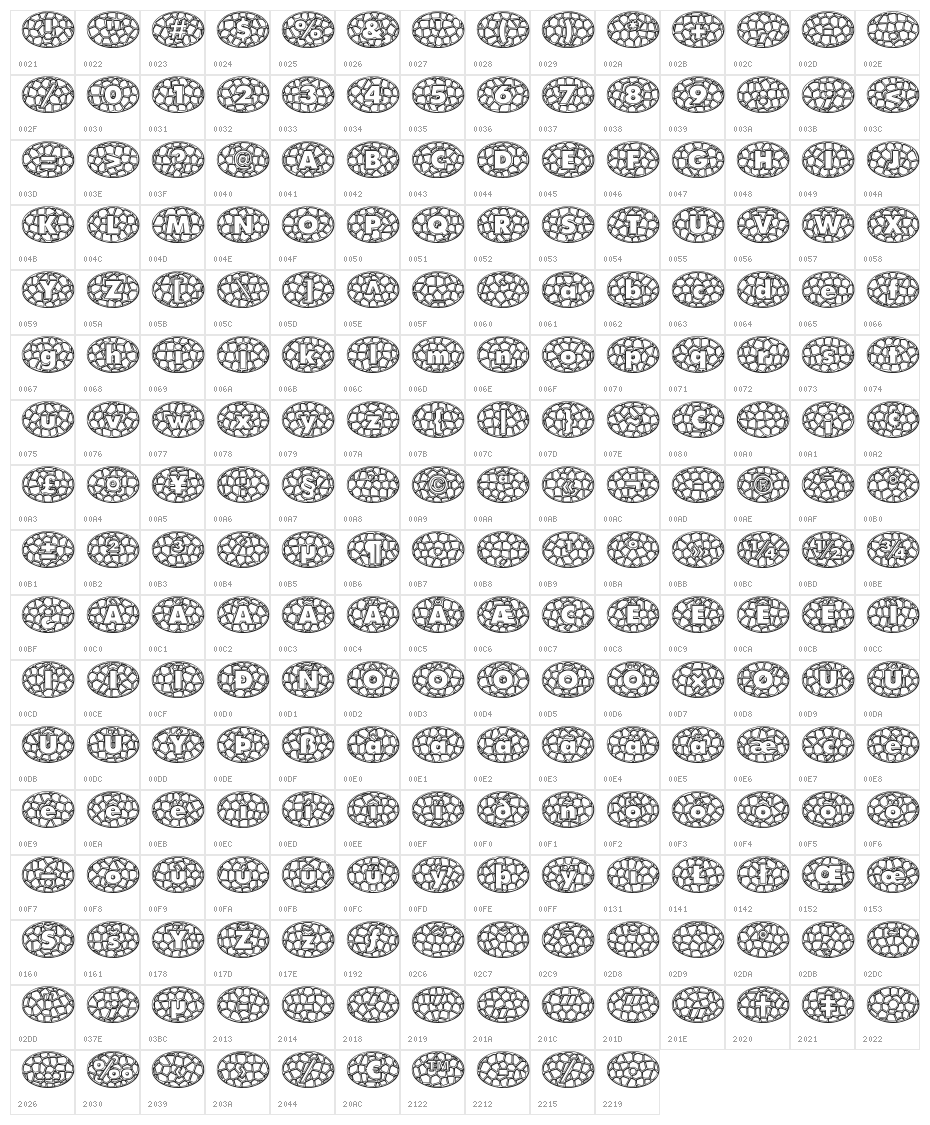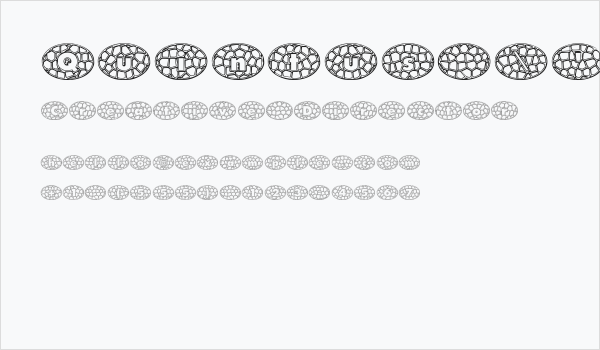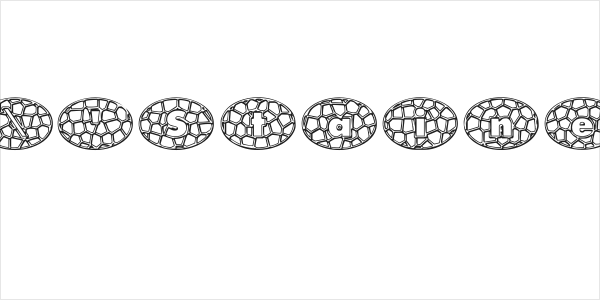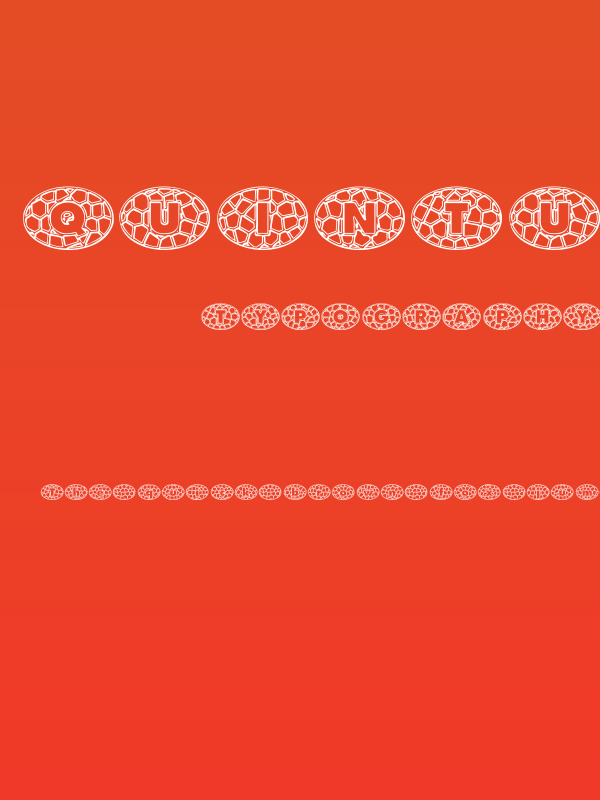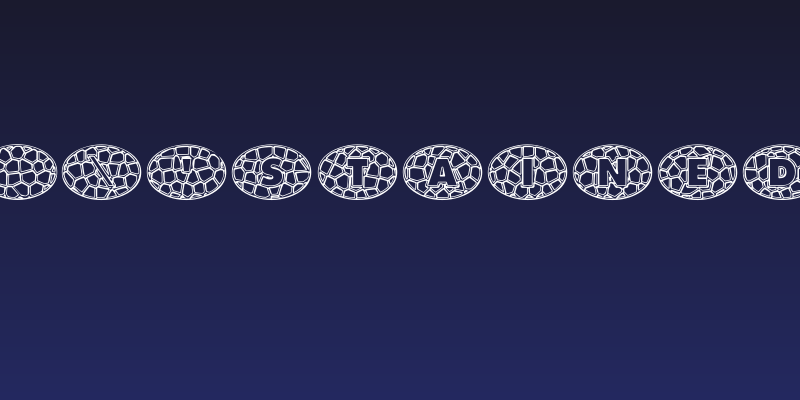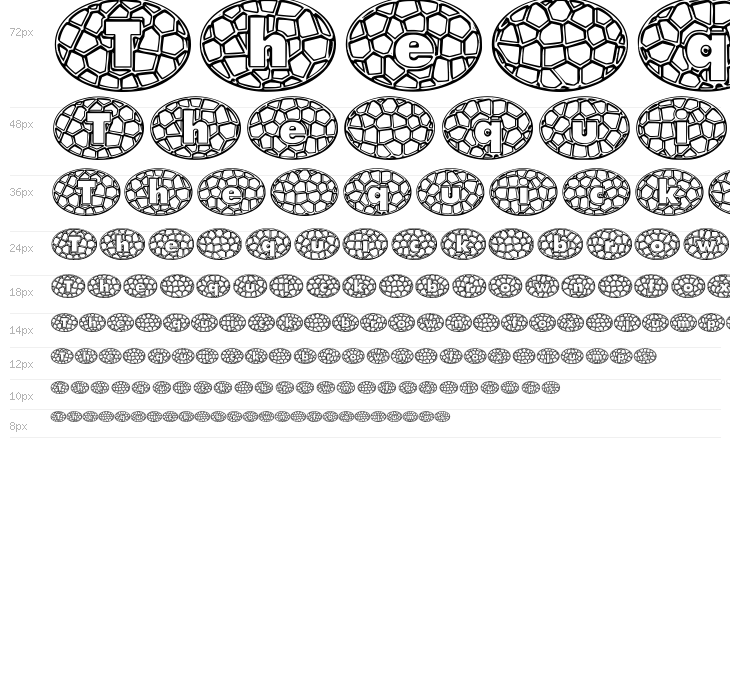
Quintus 'StainedCameo' Font
Quintus 'StainedCameo' Description
This font features a unique design reminiscent of stained glass art, with each character enclosed in an oval shape. The letters and numbers are composed of irregular, mosaic-like segments, creating a textured and intricate appearance. The style is highly decorative, making it stand out with its artistic flair. The characters are bold and distinct, with a consistent pattern across uppercase, lowercase, numbers, and special symbols. This font's design is both playful and sophisticated, offering a visually engaging experience.